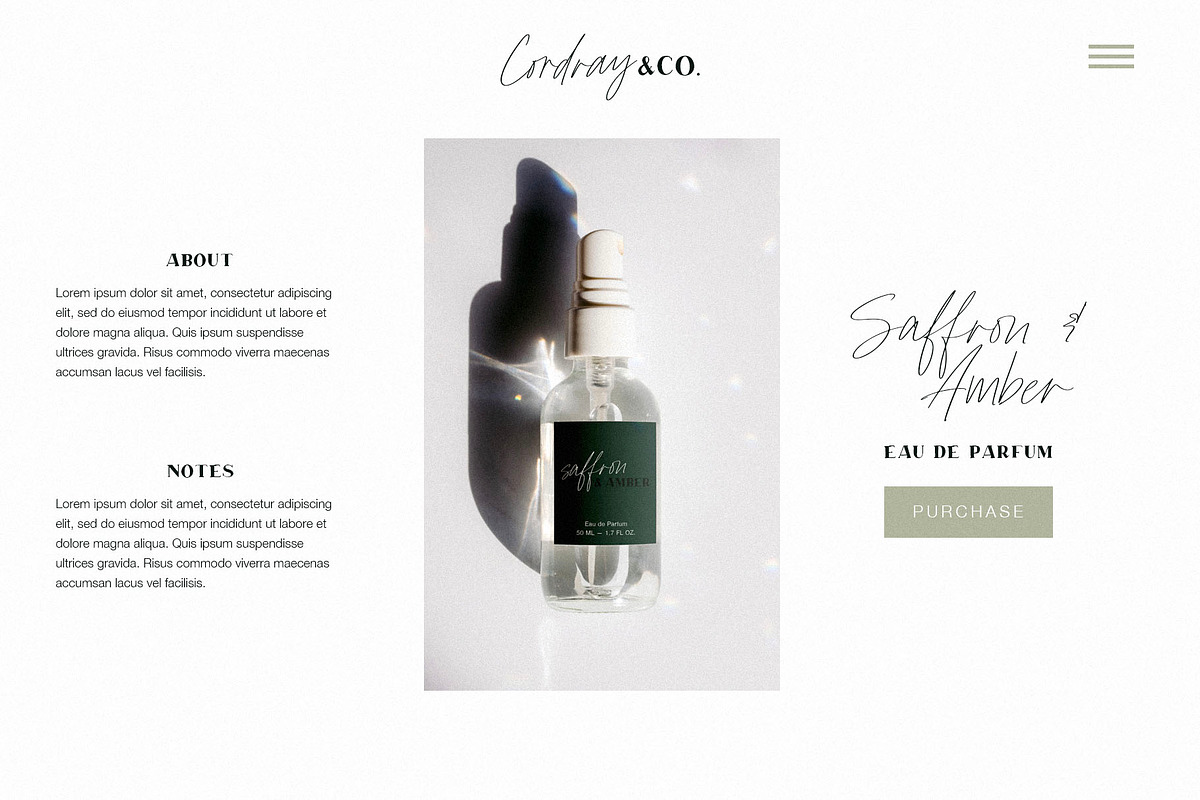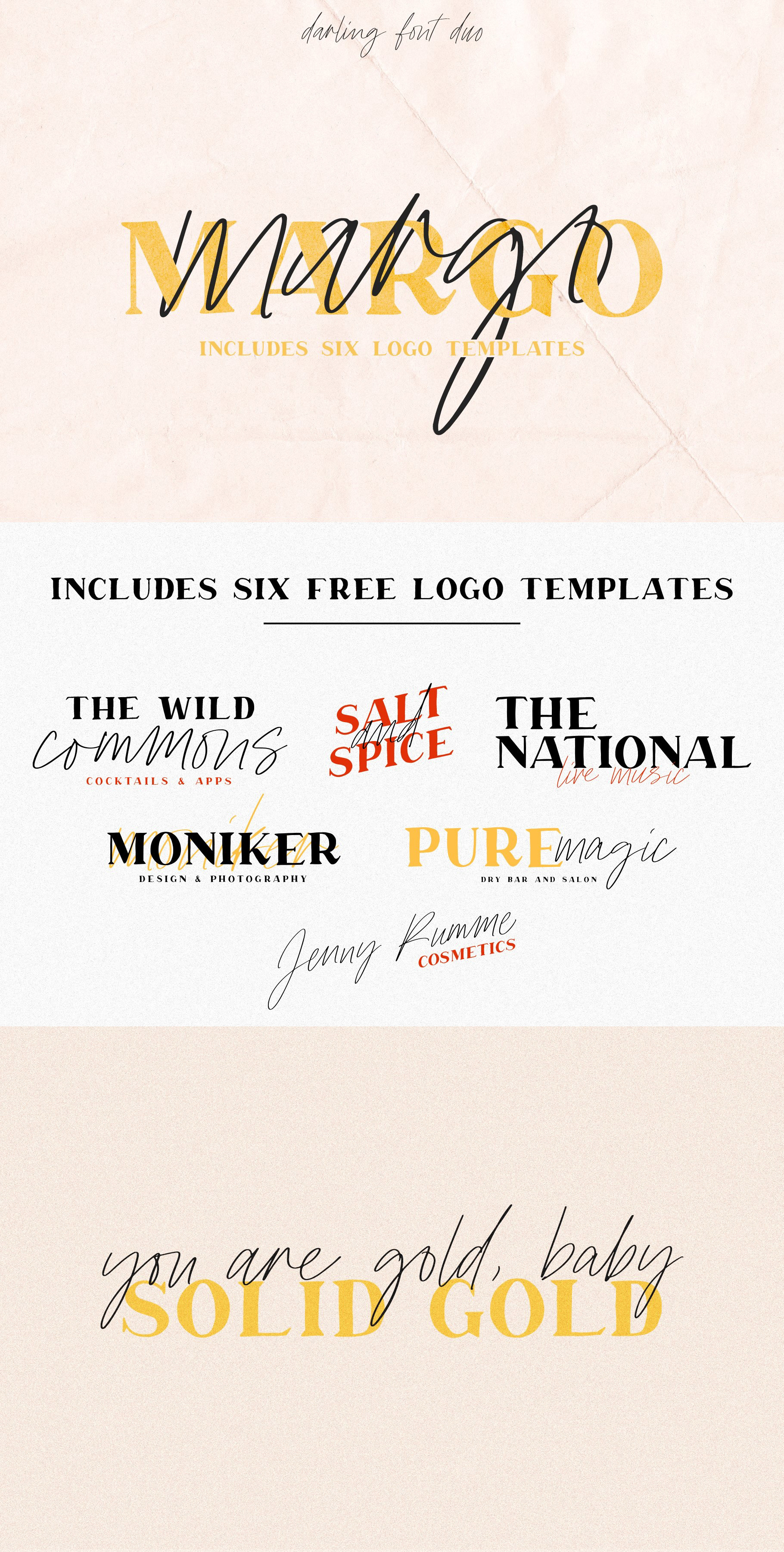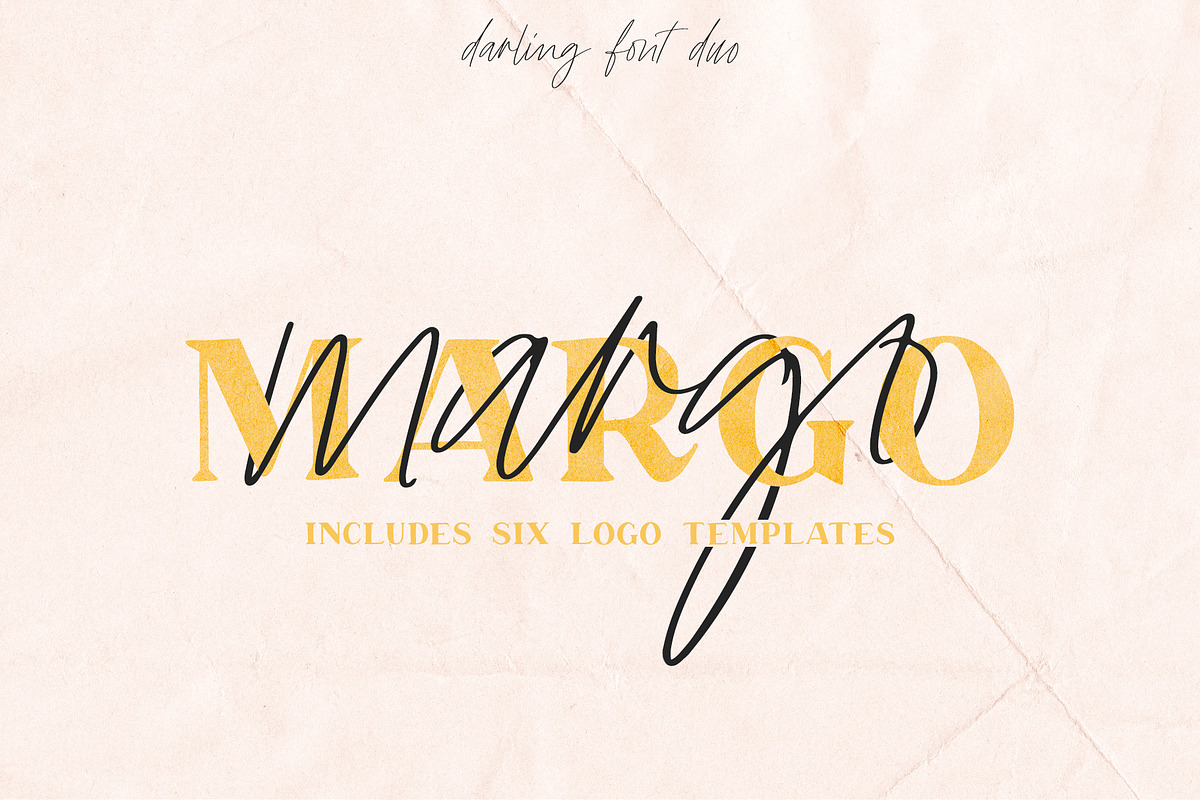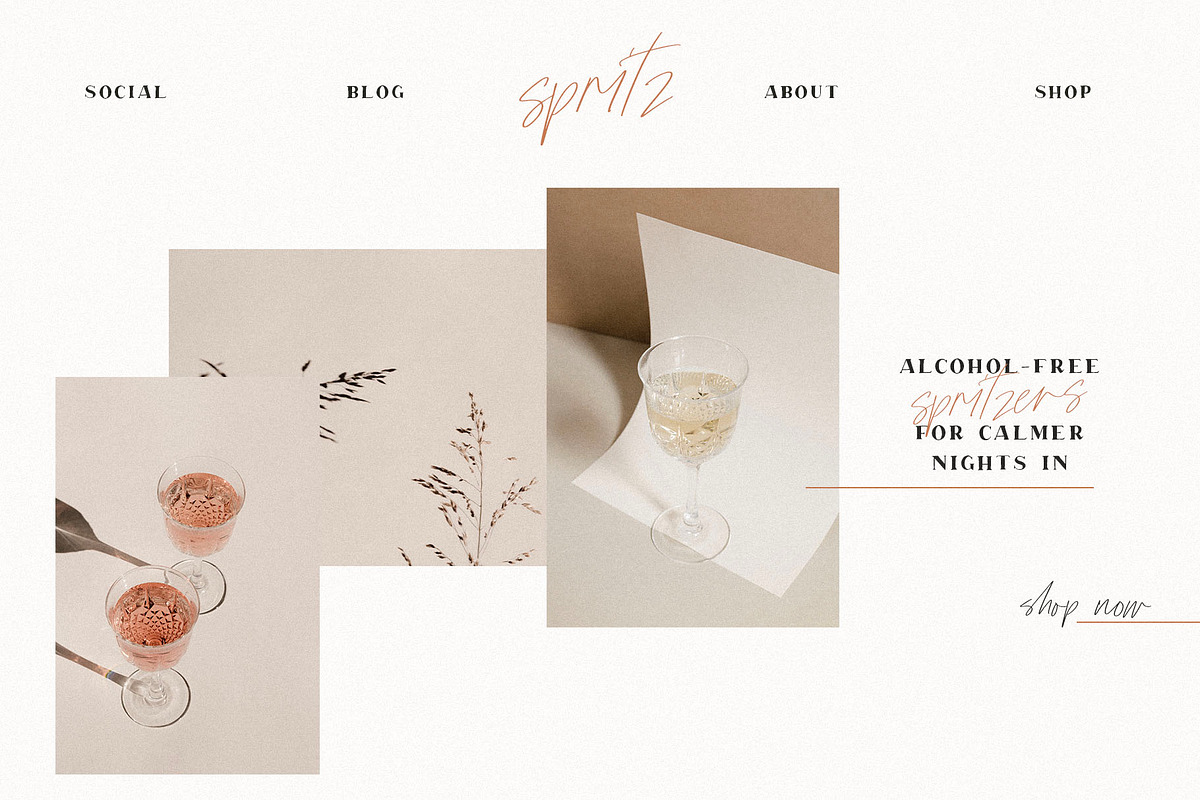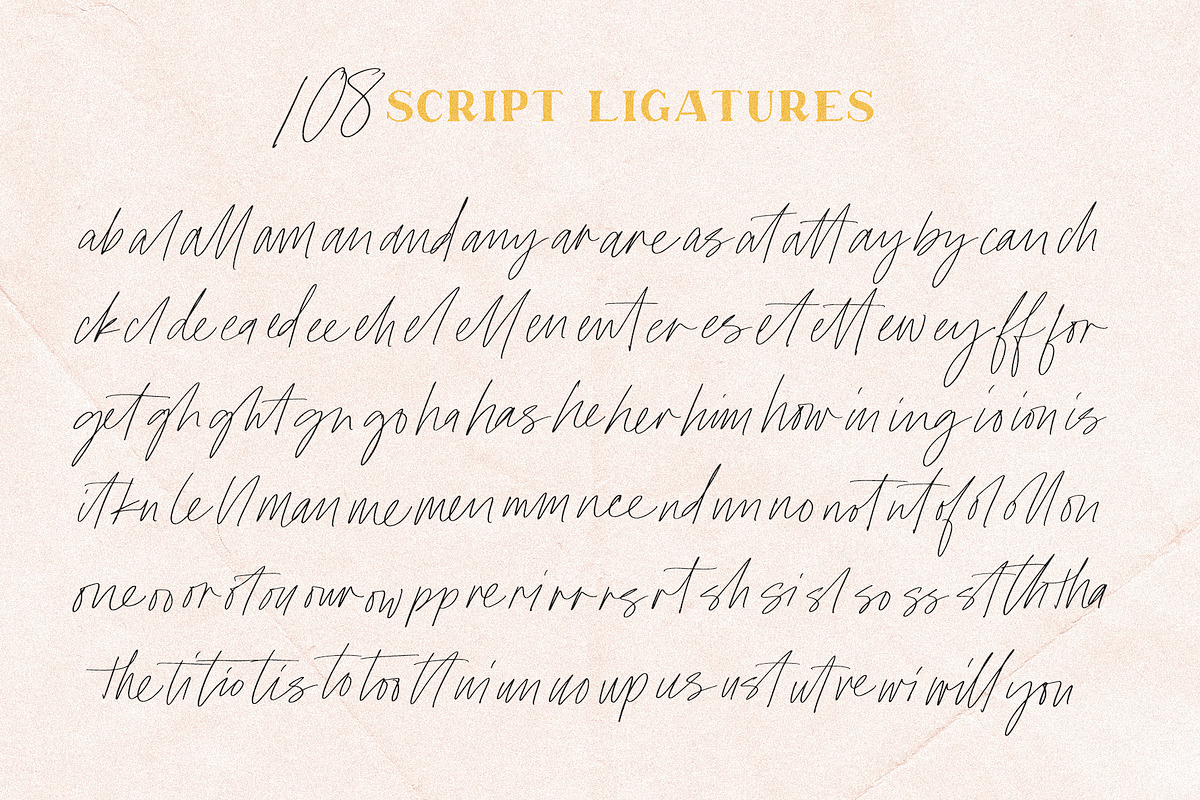
Margo Font Duo w/ 6 Bonus Logos
Margo is a playful font duo that includes a signature script and a hand-drawn serif – already matched up and ready to be used together for your next design!
- 6 BONUS logo templates that you can edit and customize in Photoshop or Illustrator
Margo Script includes:
- 108 ligatures, which will help make your text look even more hand-written
- Alternate letters to help avoid duplicating letters in your words
- Foreign language accents & characters for the international designer
Margo Serif includes:
- Alternate letters (the lowercase letters function as alternates of each uppercase letter!)
- Foreign language accents & characters